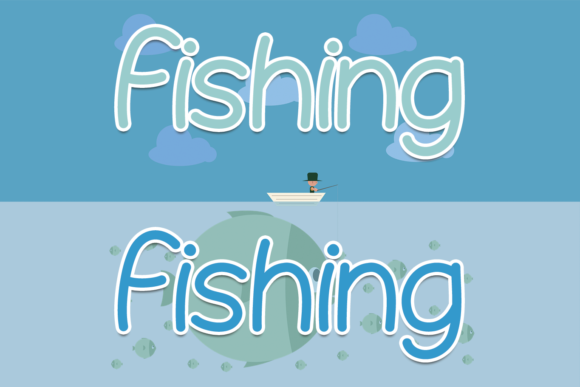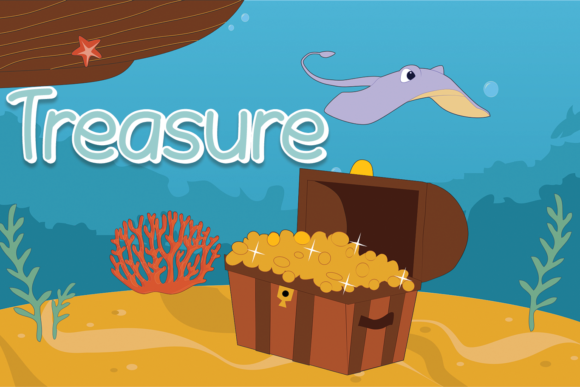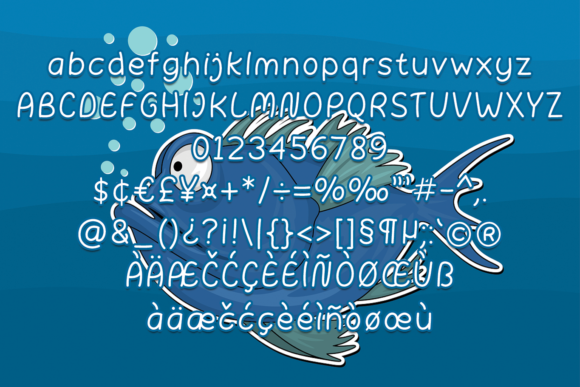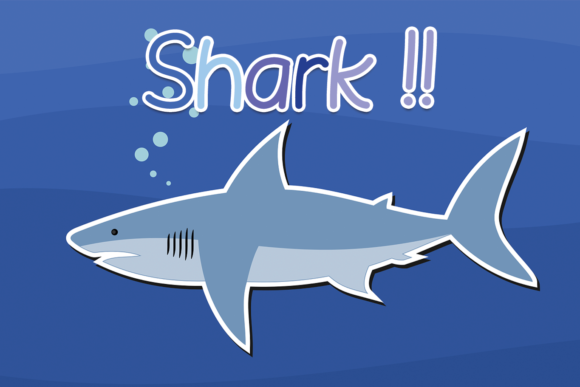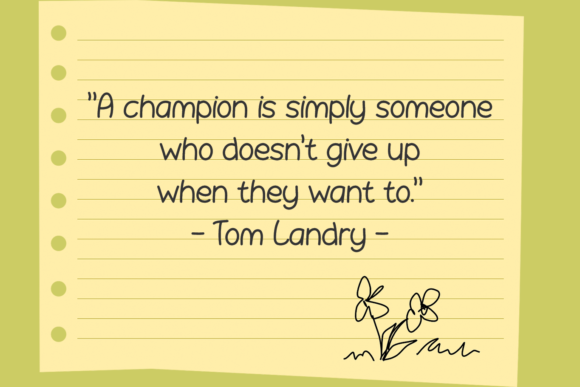
Introduction to Ohayo Font
Have you ever found yourself rummaging through your stash of design resources, searching for the perfect font to bring a little magic to your creative project? That’s exactly what happened to me the other day, and I stumbled upon a hidden gem that I just can’t wait to share with you. Say hello to the Ohayo Font, a delightful, handwritten font that’s sure to brighten up any design.
With its high-quality, adaptable design, the Ohayo Font is a valuable resource for designers of all levels. Whether you’re working on a personal project or a professional design, this font is a must-have. Its transparent background and cute, full-of-life style make it a versatile choice for a wide range of creative projects.
Key Features of Ohayo Font
- High-quality design resource ideal for creative projects, including logos, branding, and graphics.
- Features a unique, modern design with a transparent background, allowing for seamless integration into any design.
Honest Review: Ohayo Font
As a designer, I’m always on the lookout for high-quality design resources to elevate my creative projects. Recently, I had the chance to try out the Ohayo Font, and here’s my honest review.
What works well: ✨ The Ohayo Font has a unique and playful style that’s perfect for projects that need a touch of whimsy. The font is highly customizable, making it easy to adjust to your specific design needs. I also appreciate the transparent background, which allows for seamless integration with other design elements.
Here are some of the key features I liked:
- High-quality design: The font is professionally designed and looks great on a variety of backgrounds.
- Customizable: As I mentioned earlier, the font is highly customizable, making it easy to adjust to your specific design needs.
- ⚠️ Limited character set: While the font is highly customizable, the character set is relatively limited, which may not be suitable for projects that require a wide range of characters.
- ⚠️ Not suitable for body text: Due to its playful style, the Ohayo Font is best suited for headings and titles, rather than body text.
Overall, I’m impressed with the Ohayo Font, and I think it’s a great addition to any designer’s toolkit. While it has some limitations, its unique style and high-quality design make it a valuable resource for creative projects.
Tips for Getting the Most Out of Ohayo Font
Use Ohayo Font in conjunction with a transparent background to create a visually appealing design.
Experiment with different font sizes and styles to achieve the desired look for your creative project.
Combine Ohayo Font with other design elements to create a unique and eye-catching design resource.
Ohayo Font is perfect for creating social media graphics, flyers, and brochures.
Use it to add a touch of elegance to your wedding invitations or event materials.
Ohayo Font is also great for creating logo designs or branding materials.